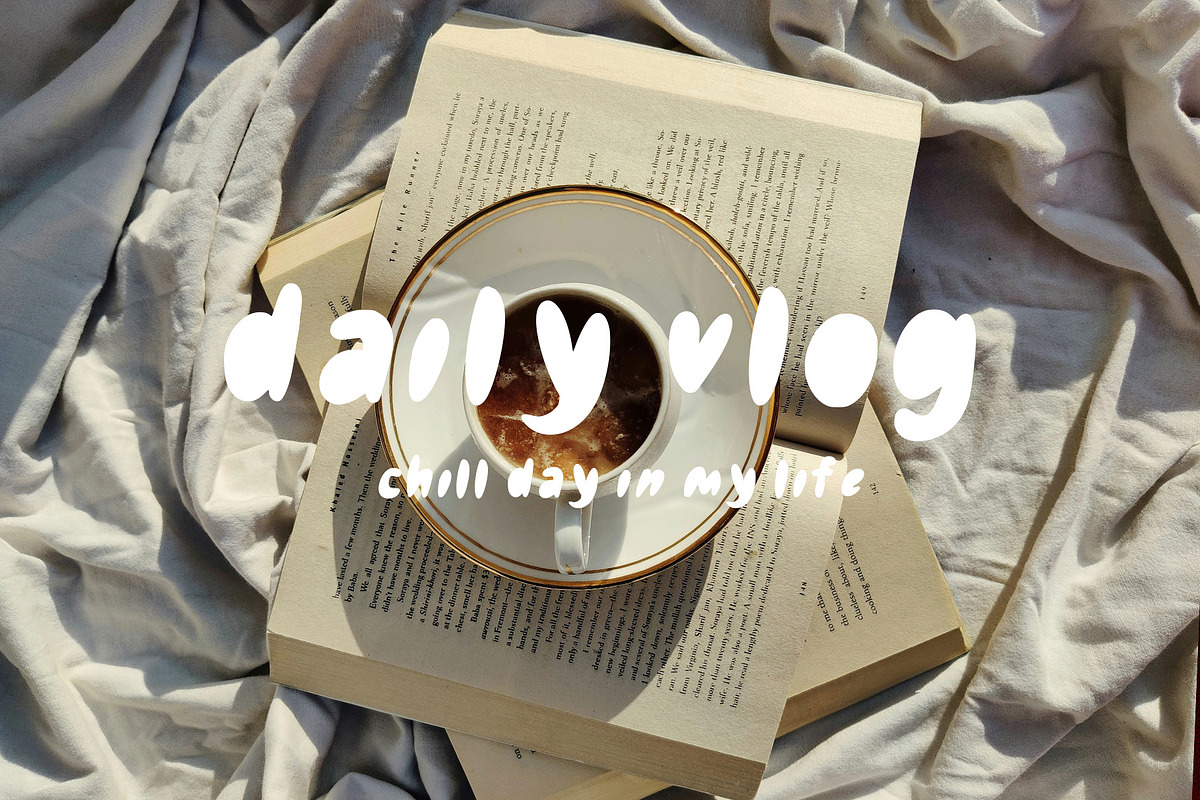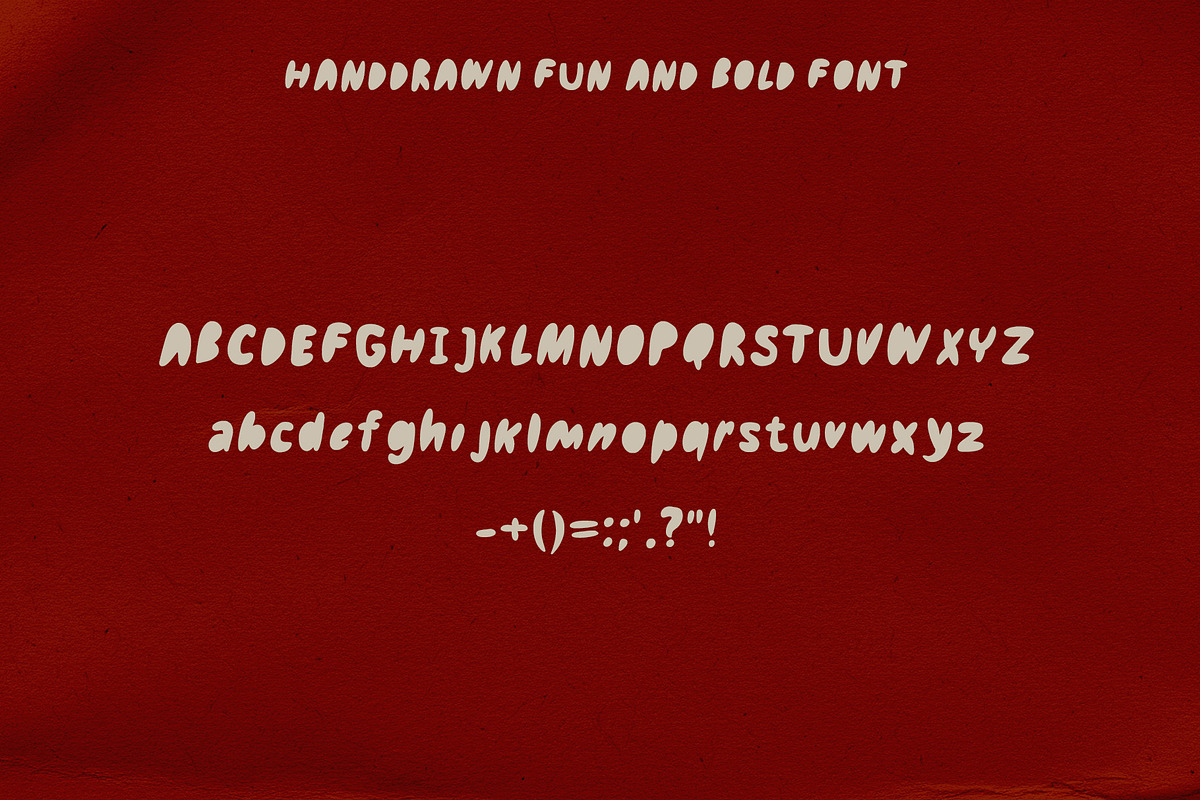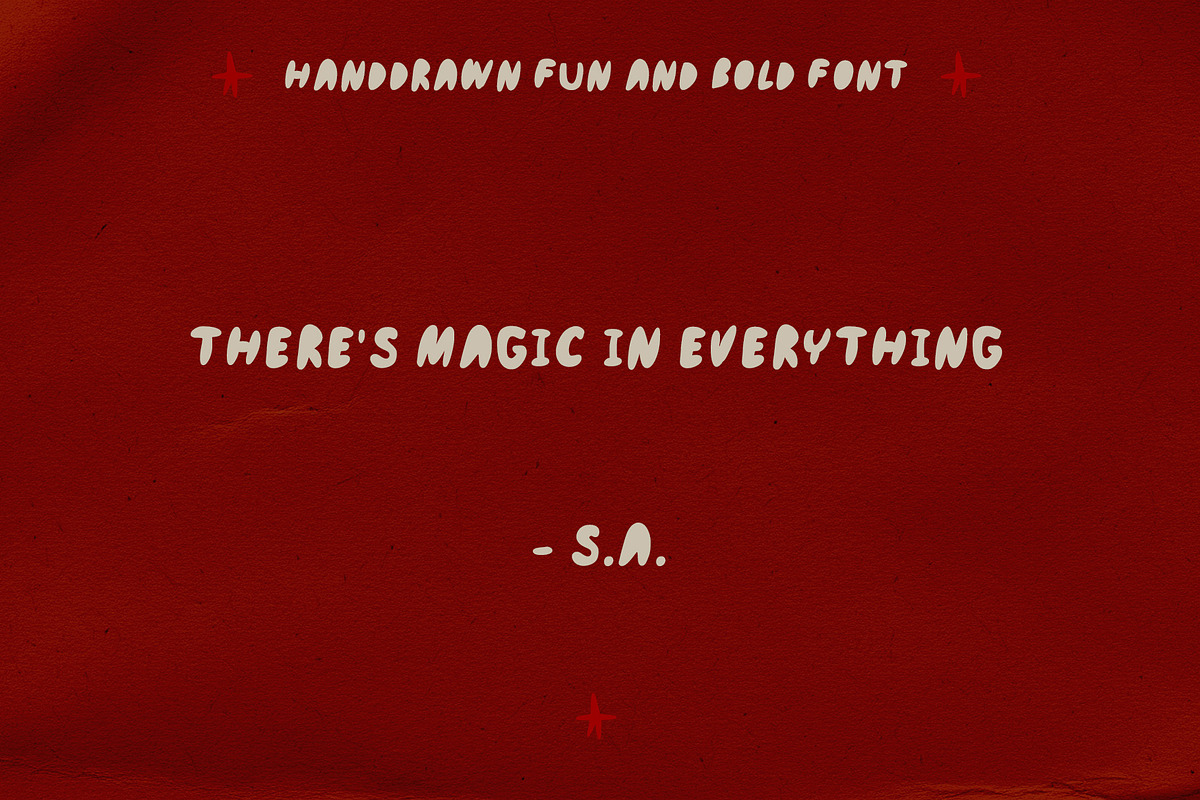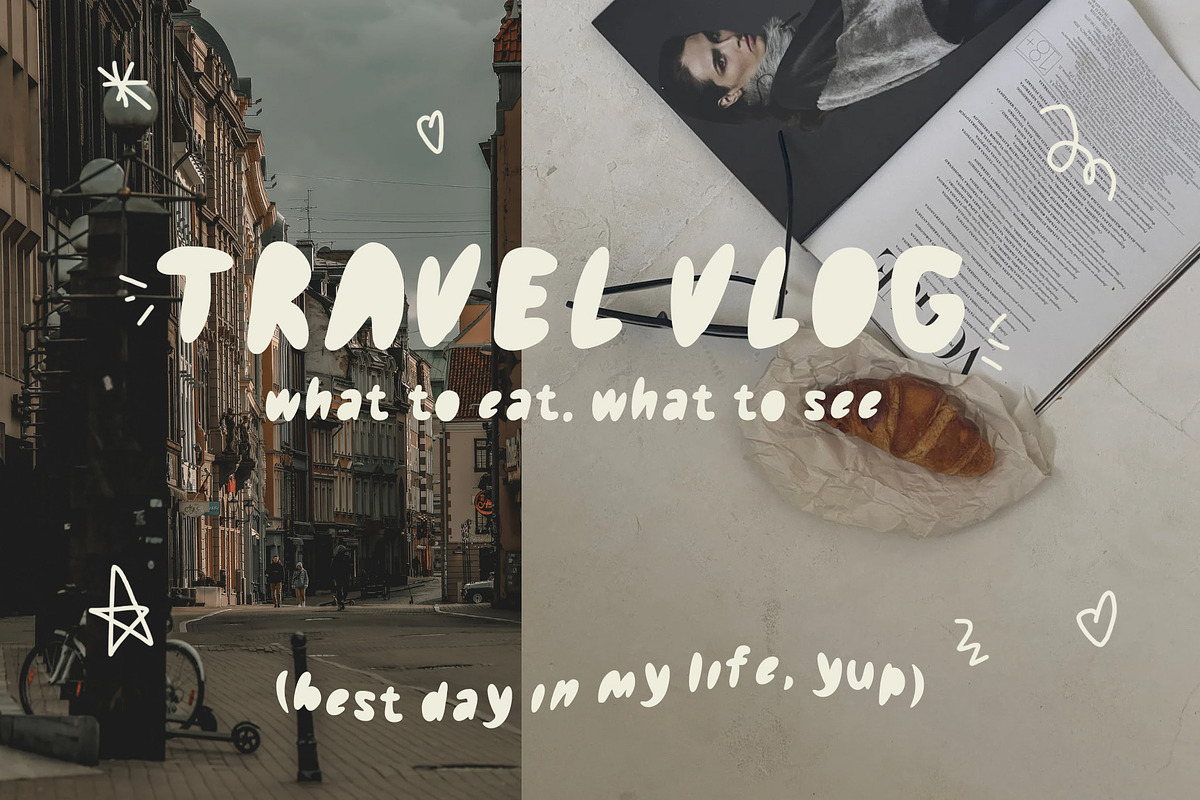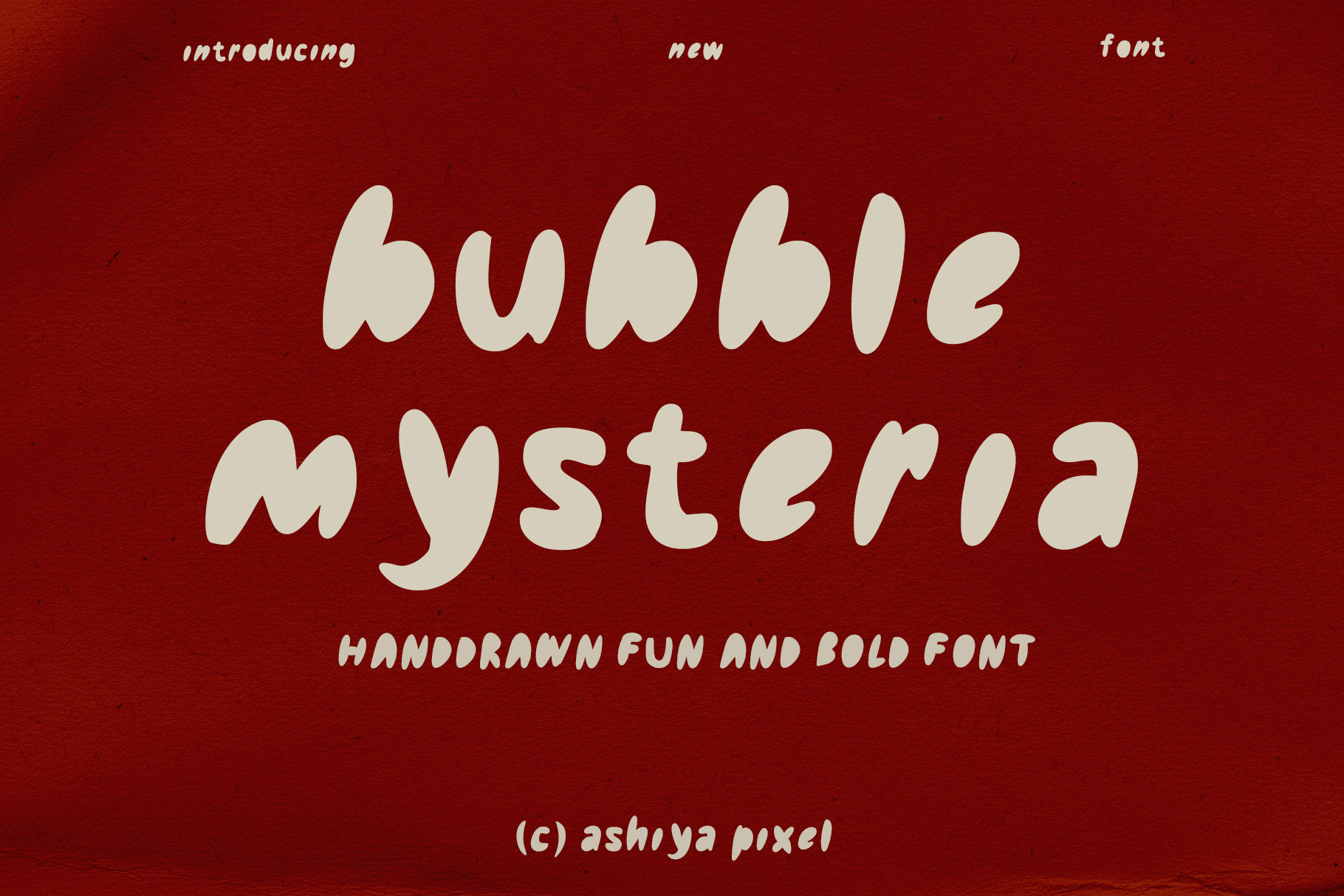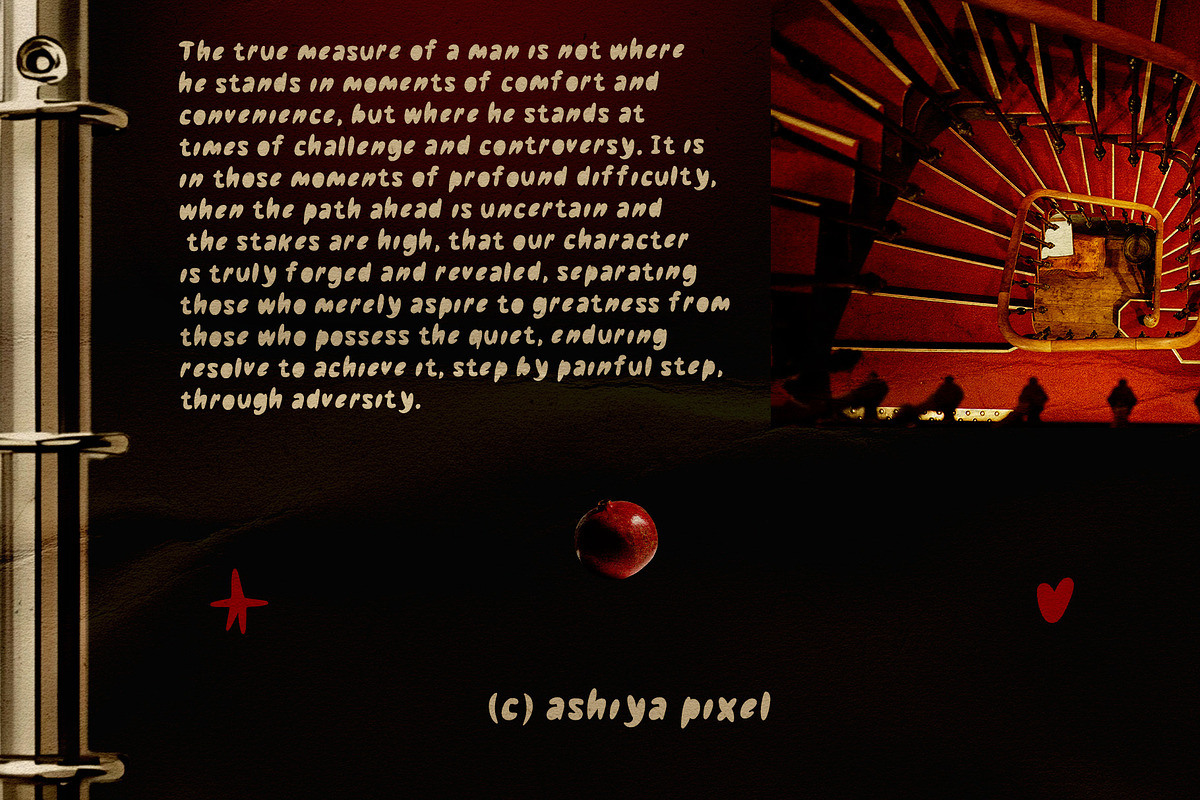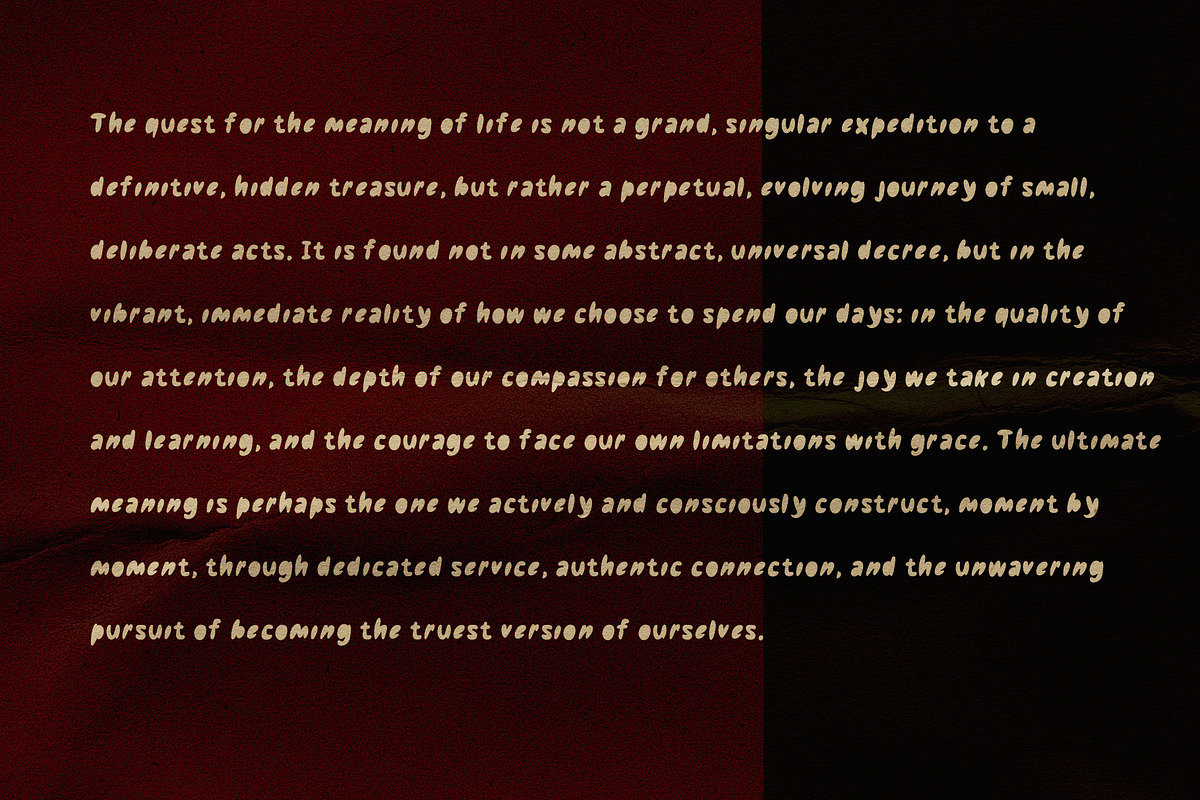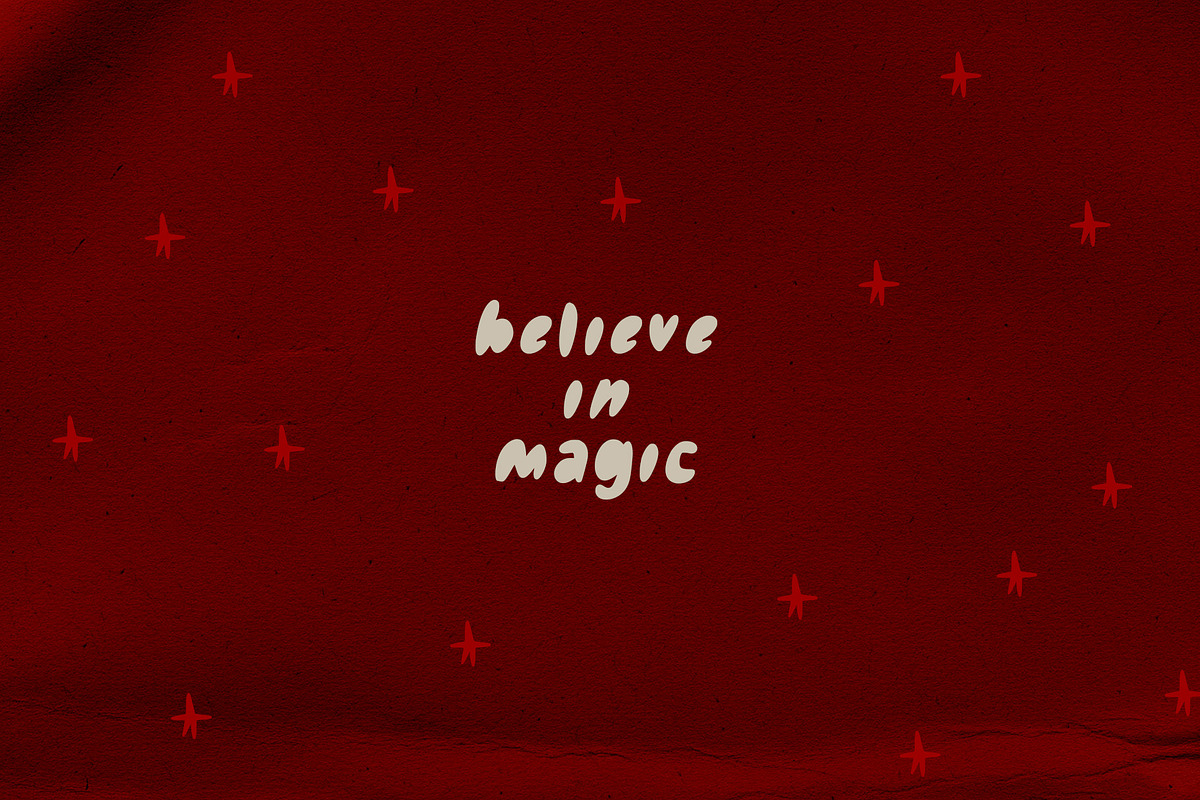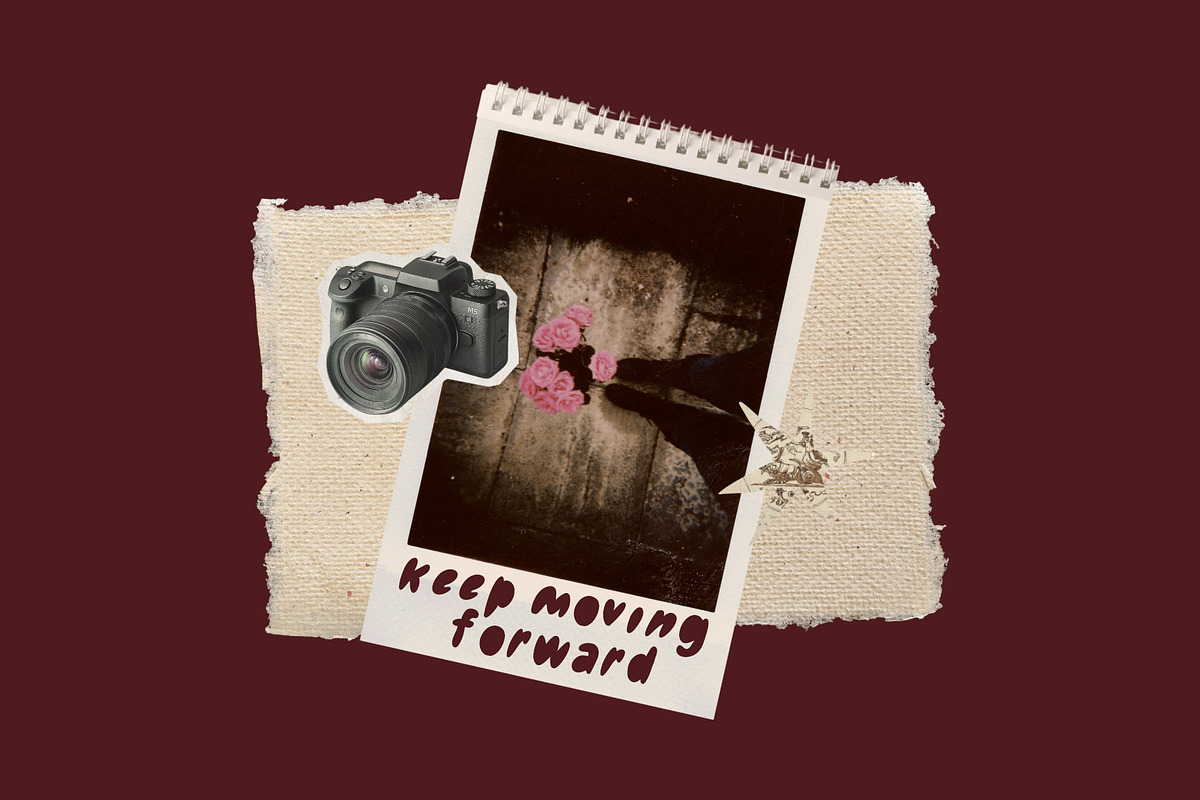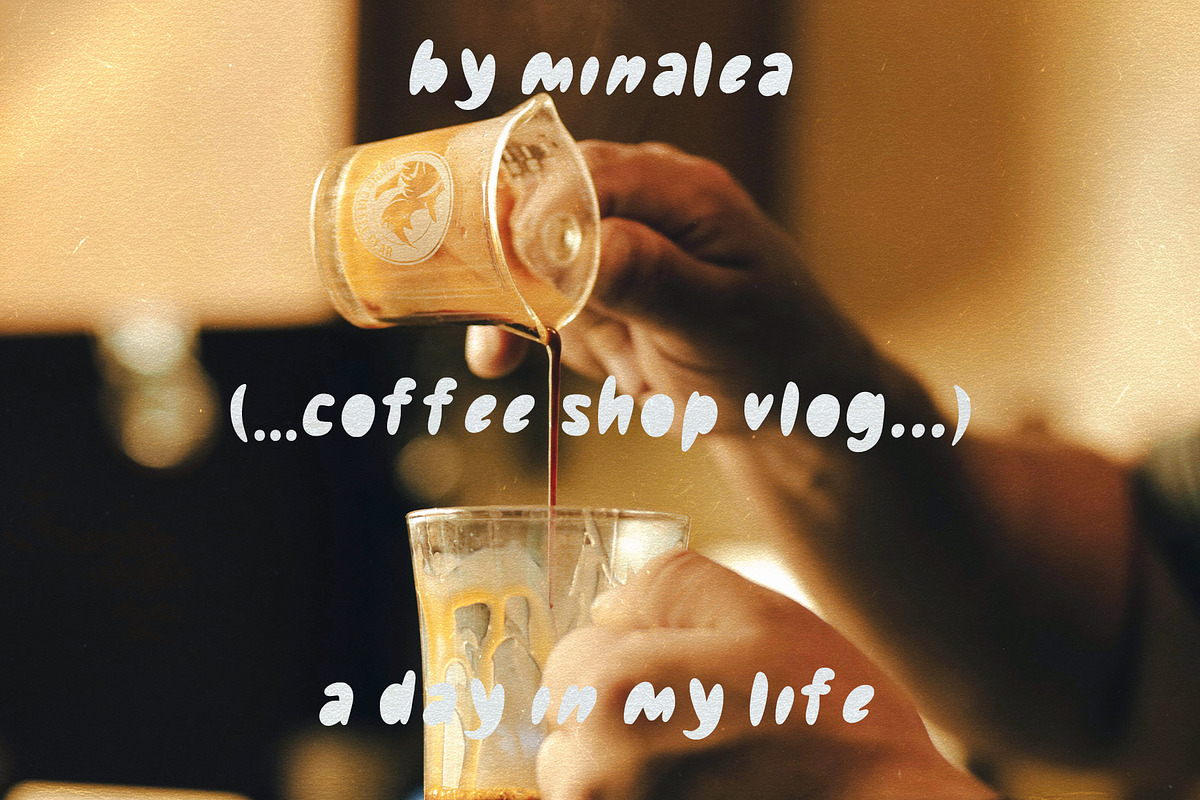
bubble mysteria - handdrawn fun font
bubble mysteria - cute handdrawn fun font
A highly versatile, hand-lettered display font designed for maximum cuteness. With its gentle curves and slightly bouncy baseline, this typeface is readable yet distinct, offering a casual, cozy, and handmade aesthetic. It’s ideal for headlines, logos, quotes, and branding materials where a touch of sweet, authentic, and friendly personality is paramount.
Use it to instantly inject fun and cuteness into social media graphics, educational materials, party invitations, or branding that aims to be memorable, casual, and utterly irresistible.